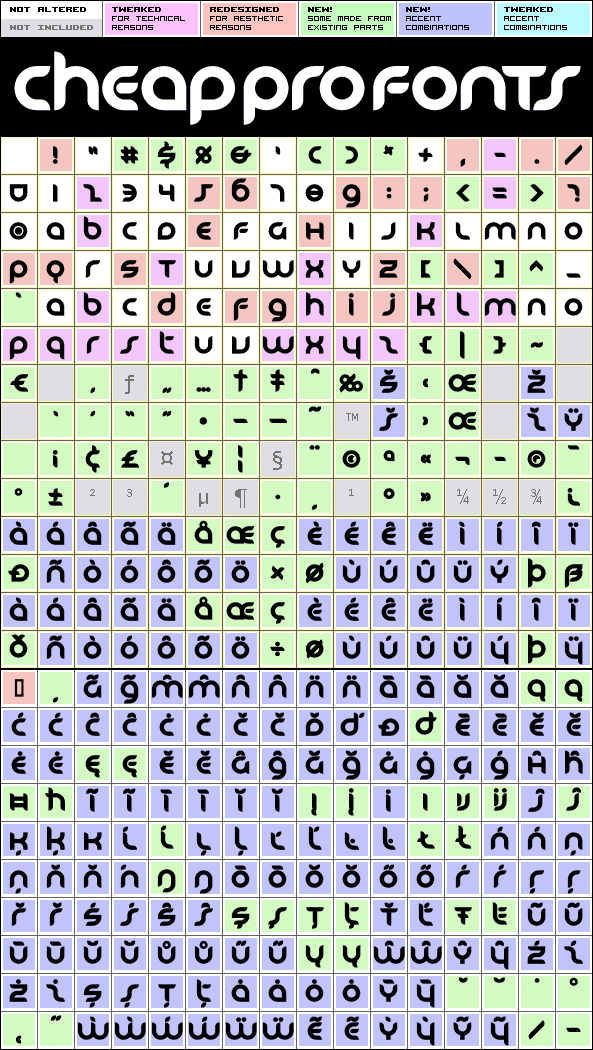
Finally the Bold weight of Danube has received the CheapProFonts treatment! Please note that the bolding process for this font mostly just involved adding a bit of weight on the outside of each letter (and adding a bit of spacing) - so it no longer rests on the baseline. But it gives a bit more punch! ;)
Danube Pro Bold is a professionally reworked font that contains an extended character set for setting text in 65 languages requiring more than the basic A-Z!